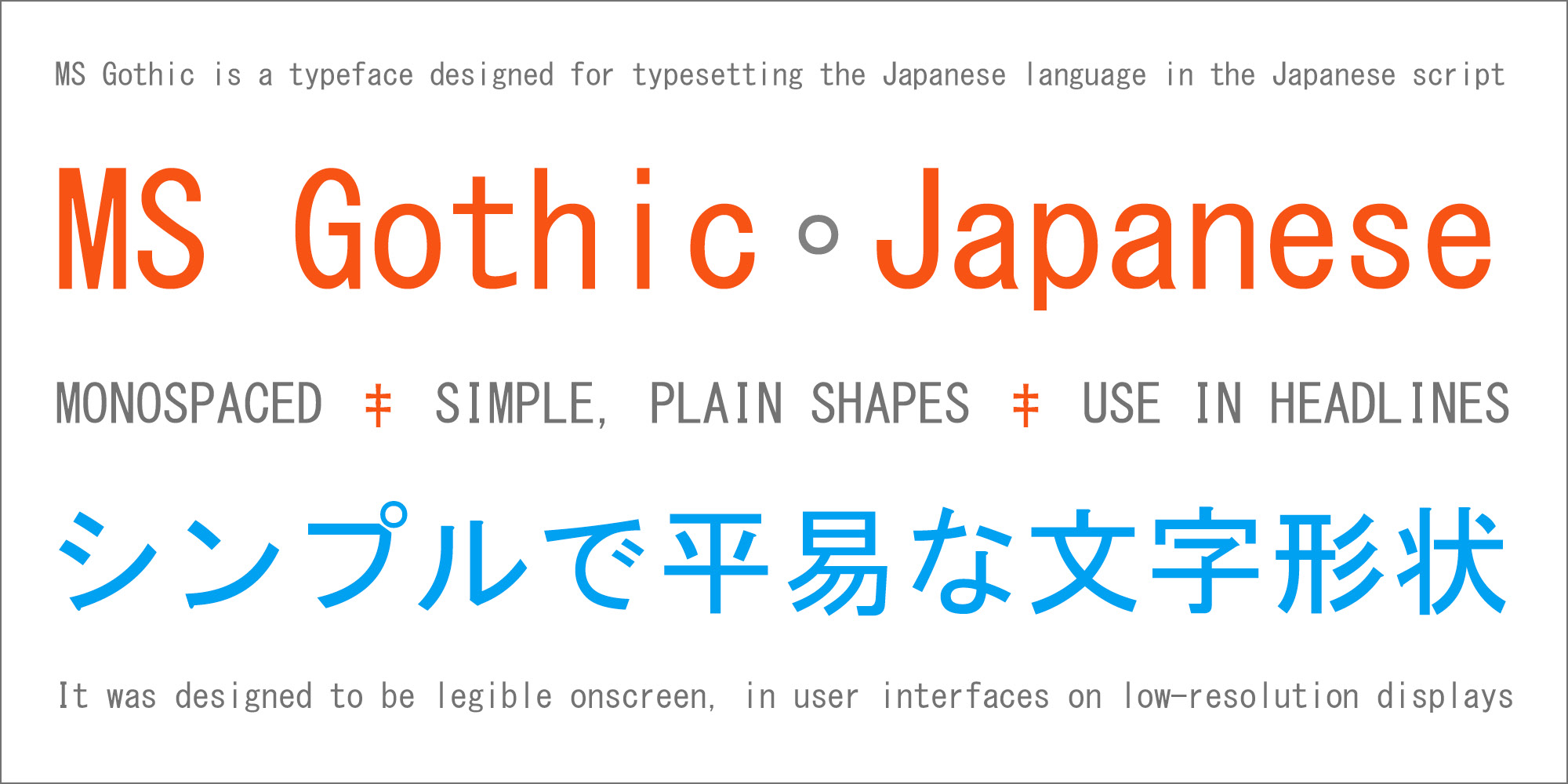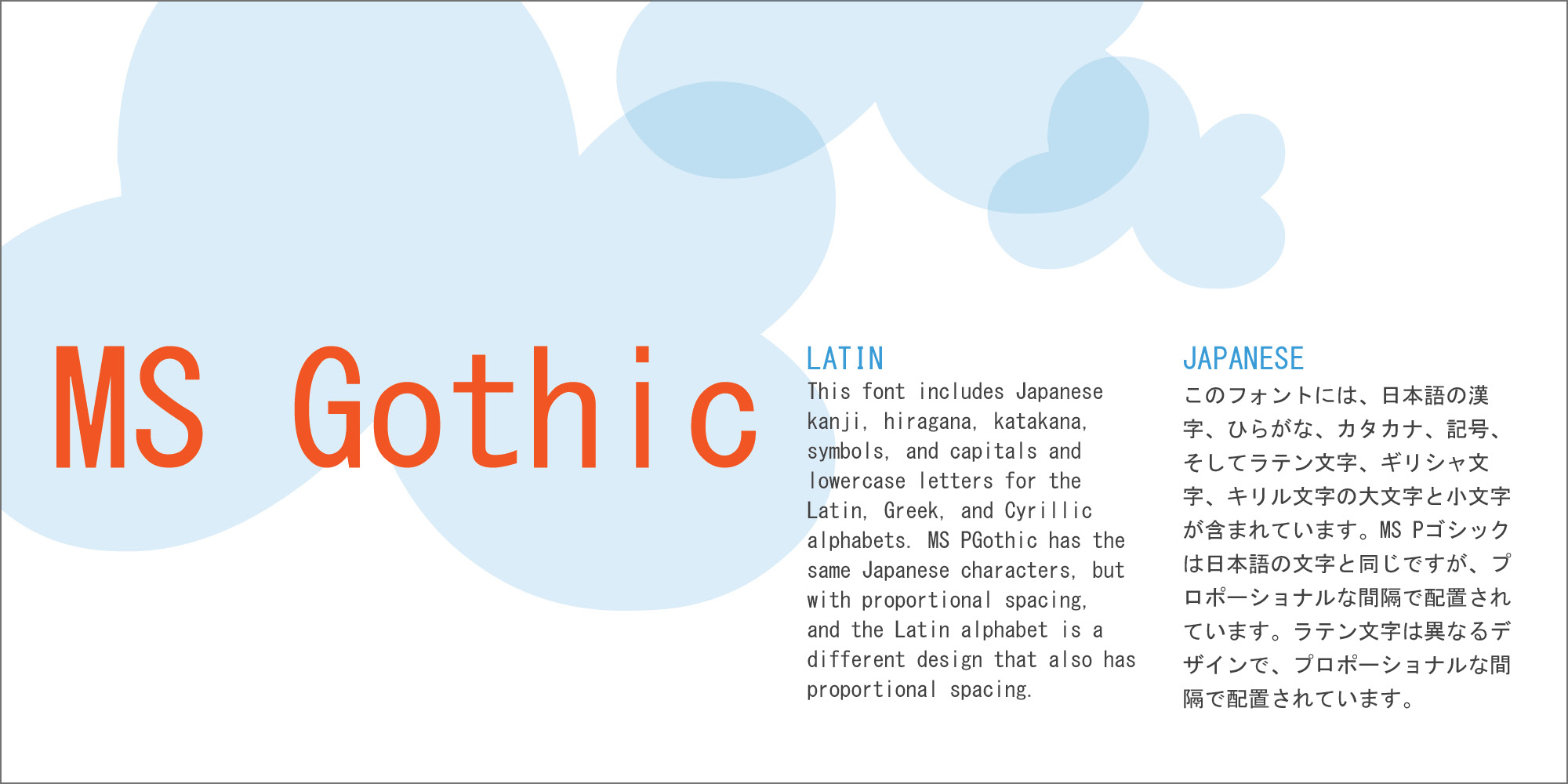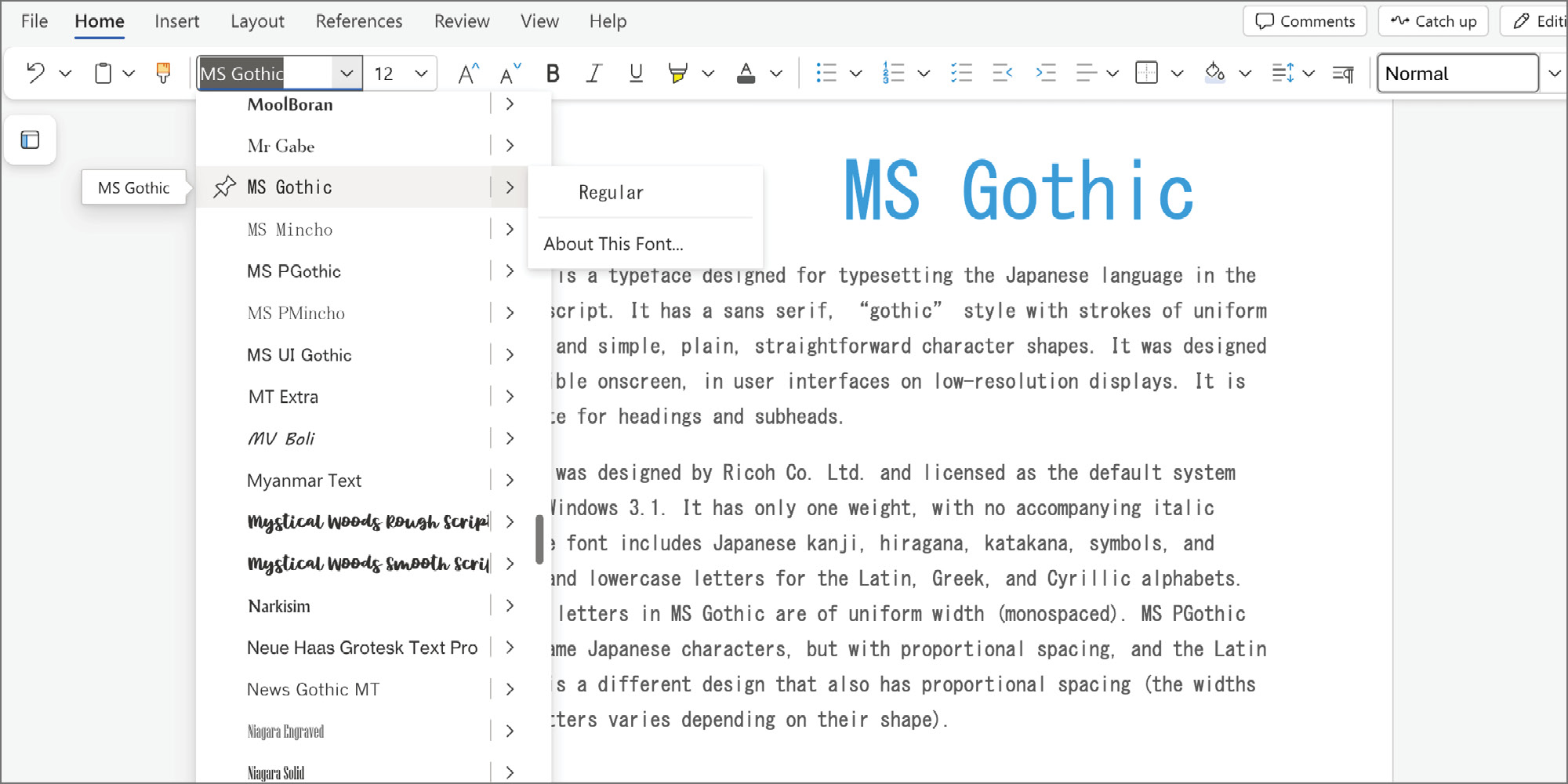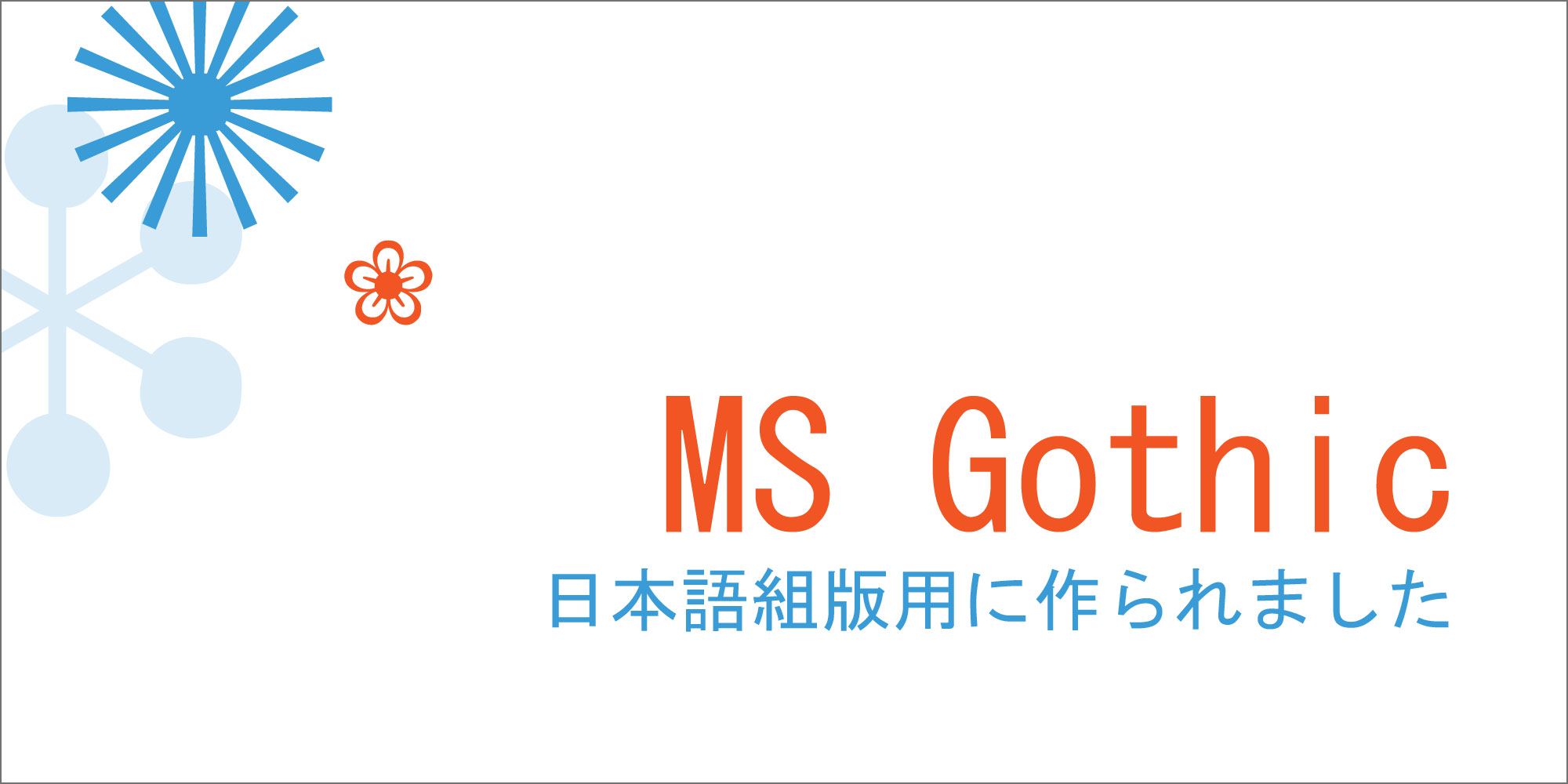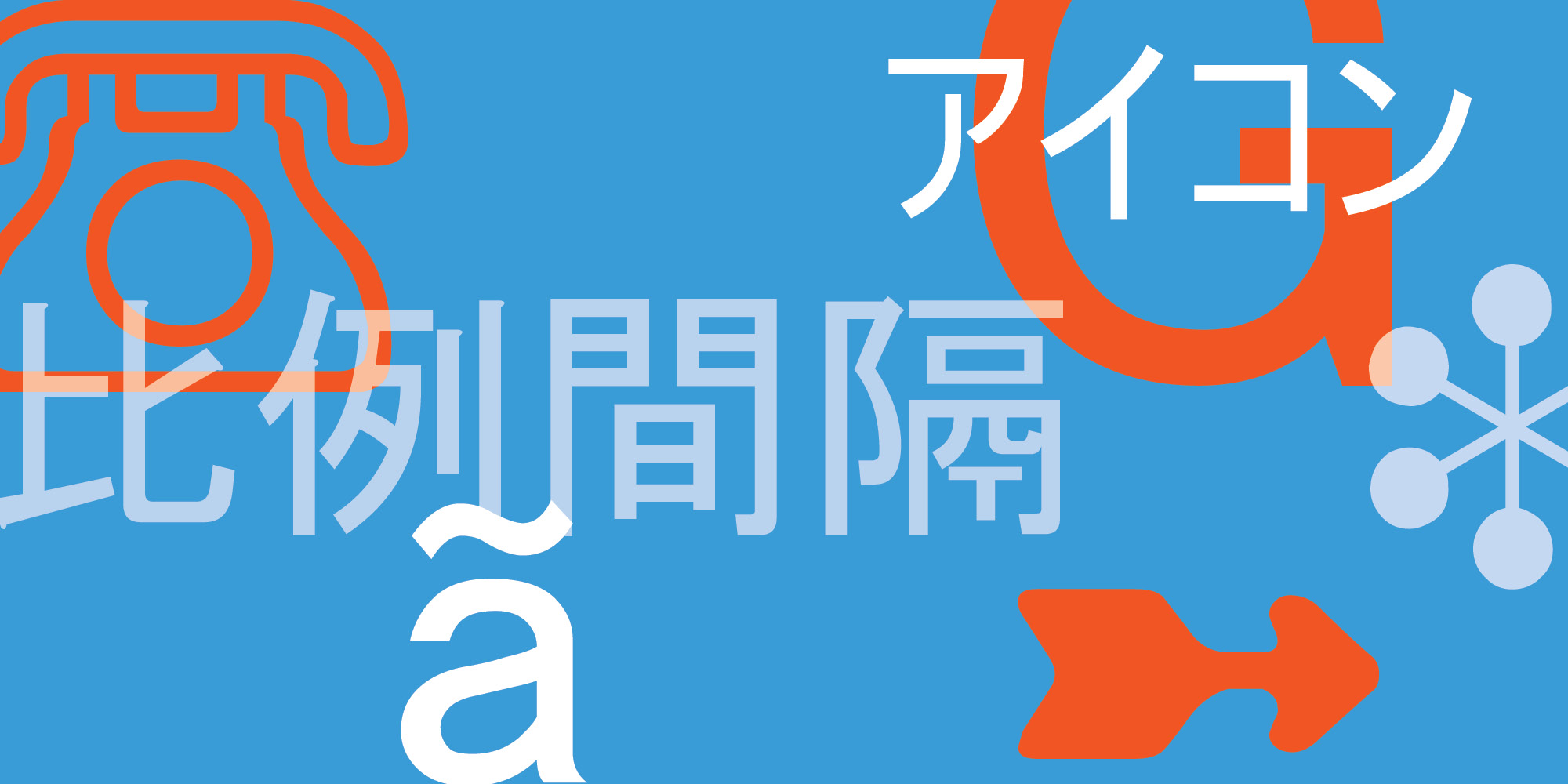
MS Gothic is a typeface designed for typesetting the Japanese language in the Japanese script. It has a sans serif, “gothic” style with strokes of uniform thickness and simple, plain, straightforward character shapes. It was designed to be legible onscreen, in user interfaces on low-resolution displays. It is appropriate for headings and subheads.
MS Gothic was designed by Ricoh Co. Ltd. and licensed as the default system font for Windows 3.1. It has only one weight, with no accompanying italic style. The font includes Japanese kanji, hiragana, katakana, symbols, and capitals and lowercase letters for the Latin, Greek, and Cyrillic alphabets. The Latin letters in MS Gothic are of uniform width (monospaced). MS PGothic has the same Japanese characters, but with proportional spacing, and the Latin alphabet is a different design that also has proportional spacing (the widths of the letters varies depending on their shape). The default glyph shapes of this MS UI Gothic are based on JIS2004. This font also provides access to a set of JIS90 legacy glyphs via 'jp90' OpenType layout table.
MS Gothic